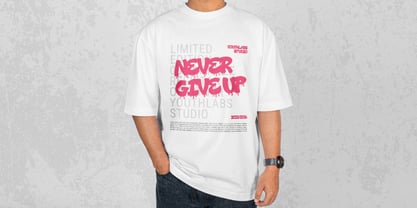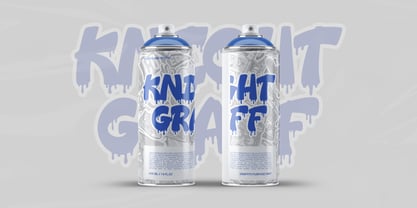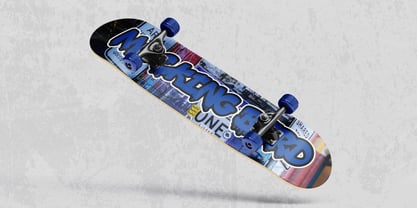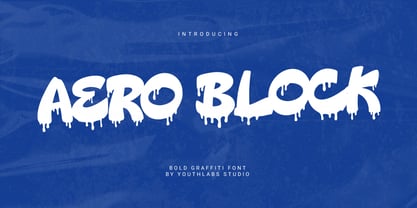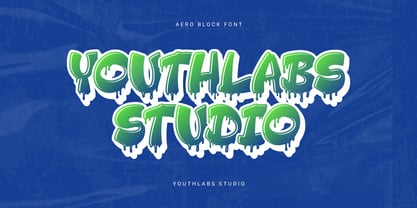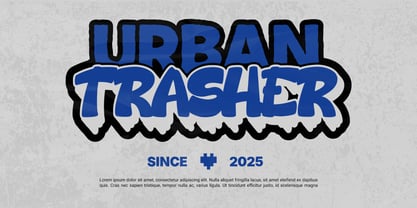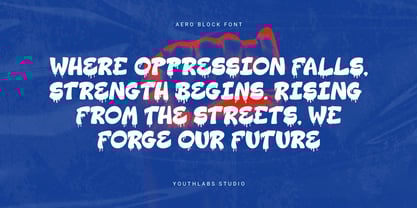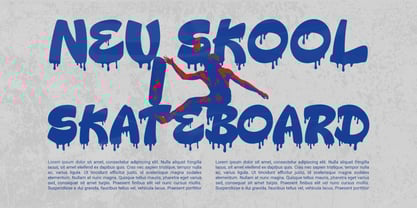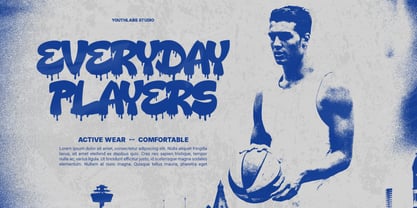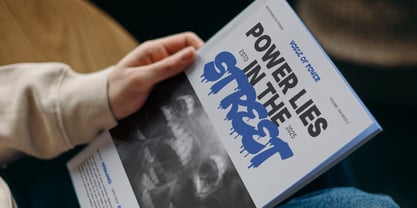
Aero Block
by Youthlabs
The Aero Block Font Family was designed by Fathi Al Ghazi and published by Youthlabs. Aero Block contains 1 styles. More about this family
Aero Block is a bold, raw, and unapologetic display font that embodies the soul of the streets. Drawing inspiration from dripping graffiti, subway tags, and comic-like block letters, it merges power, resistance, and creativity into a single, explosive style. Each character drips and melts at the edges, adding a feeling of movement and rebellion — as if the letters were sprayed directly from a can under a dimly lit overpass. Aero Block is perfect for projects that need an unmistakable urban edge, from album covers and poster art to streetwear branding and video game titles. Let it bring your words to life with a rich, energetic, and rebellious twist.